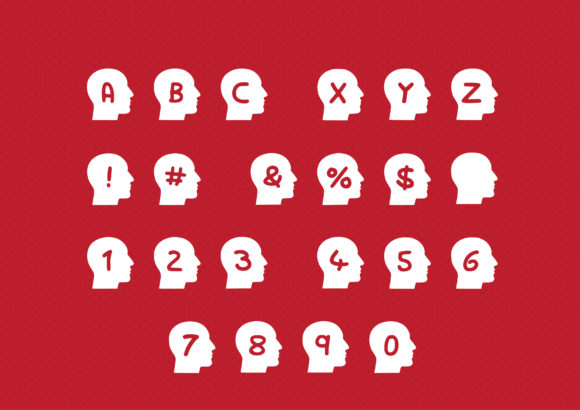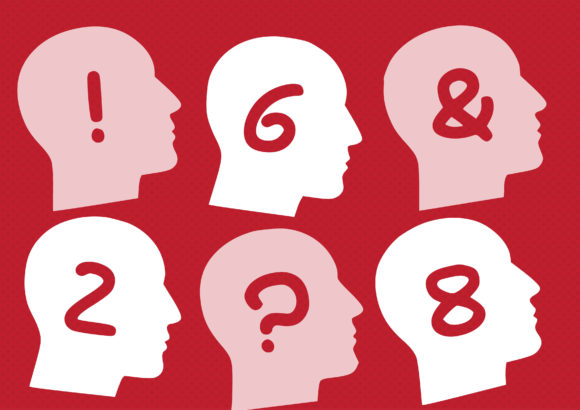
Introduction to Play Head Font Font
Fonts play a crucial role in design, and the Play Head Font font is a typeface that brings both character and versatility to any project. Whether you’re working on a branding project, a website, or a print design, the Play Head Font font offers a unique style that can elevate your work.
Play Head is an interesting decorative font filled with heads that contain letters and numbers.
It is a wonderful font for creating wild artistic designs .
Key Features of Play Head Font Font
Why Choose Play Head Font Font?
The Play Head Font font is more than just a typeface – it’s a design tool that helps you communicate your message with style and clarity. Its unique character set and versatile design make it suitable for a wide range of applications, from elegant invitations to bold headlines.
With its carefully crafted letterforms and balanced proportions, the Play Head Font font ensures readability and visual appeal across all mediums.
What makes Play Head Font font special?
The Play Head Font font stands out with its unique design, exceptional readability, and versatility across various design applications.